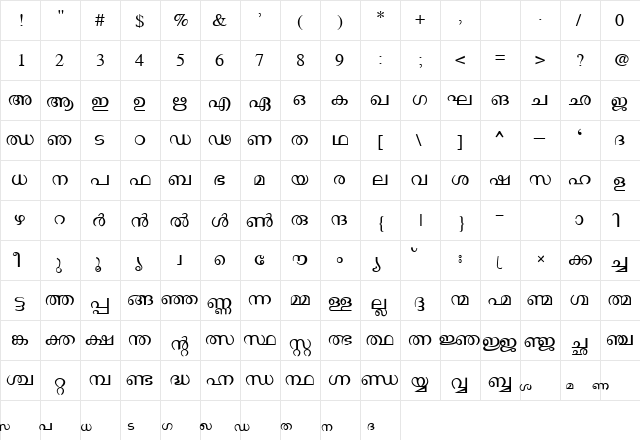
Ssoft's-Veena-ML Normal
Design Context for Ssoft's-Veena-ML Typeface
Ssoft's-Veena-ML is a composed and adaptable typeface that performs quietly and consistently across a wide range of design contexts.